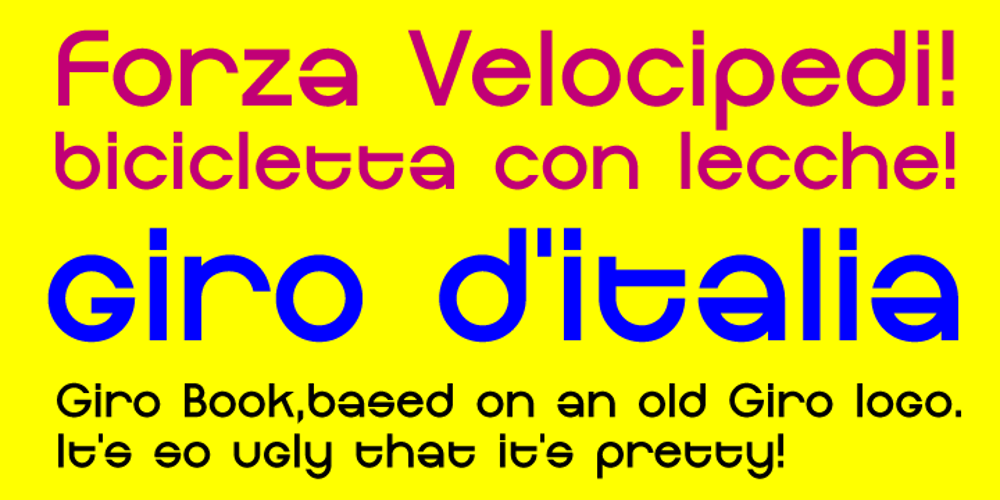
Giro Font Family was designed by Tomi Haaparanta and published by Suomi. Giro contains 1 styles and family package options. I saw an old logo for Giro d’Italia on telly, and was just smitten by the truly ugly type: just ruler and compass work, no intakes or optical corrections whatsoever. I just had to turn that into a font.